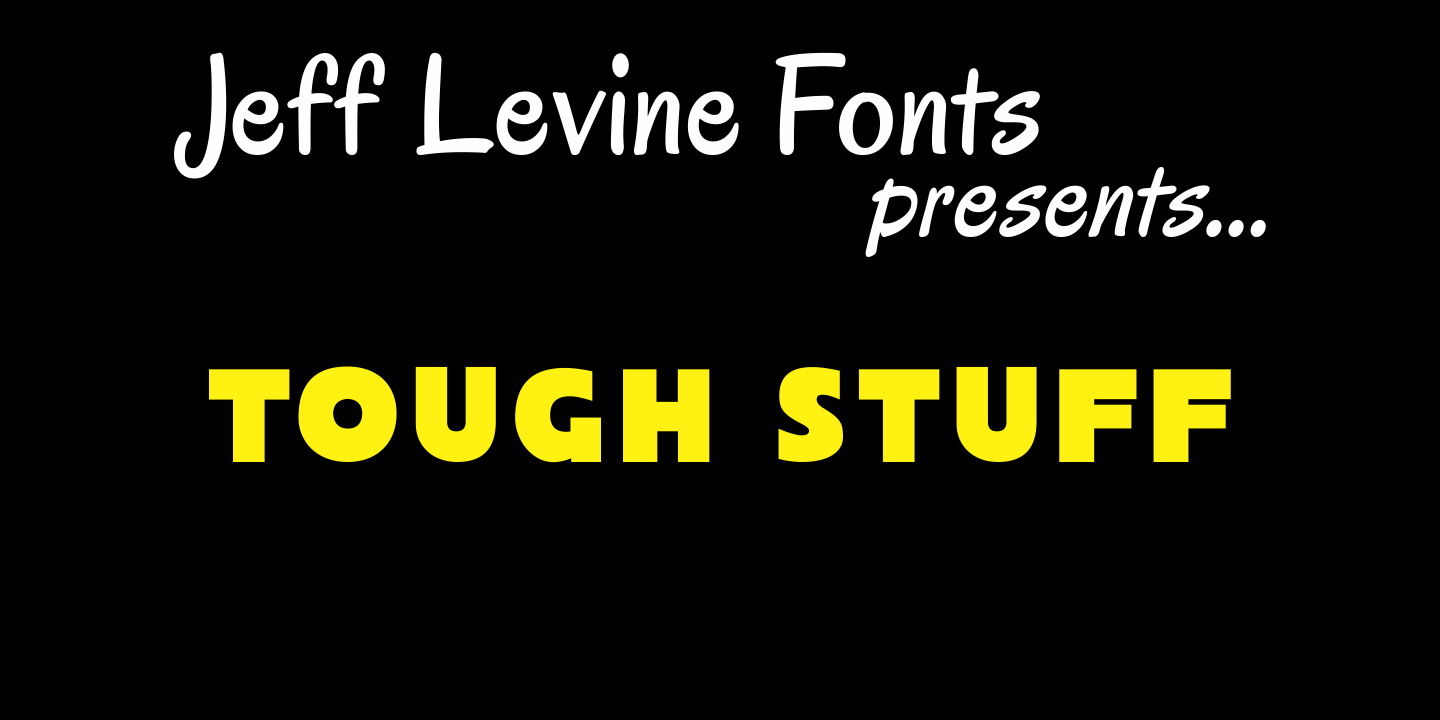
Tough Stuff
Tough Stuff JNL is a solid version of Jeff Levine's Tough Guy JNL [an outline font with a cast shadow]. In this version, the bold lettering shows off its "hand-made" look, and is perfect for posters, fliers or ads that need to grab attention without looking too formal.